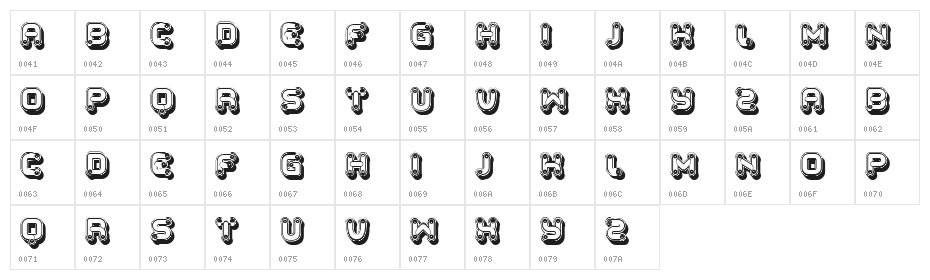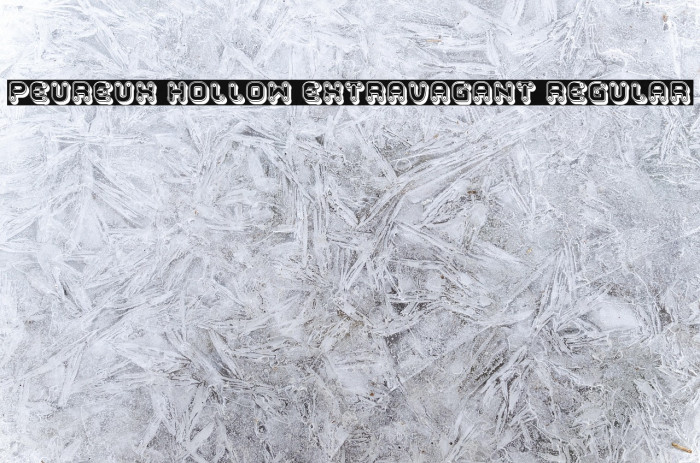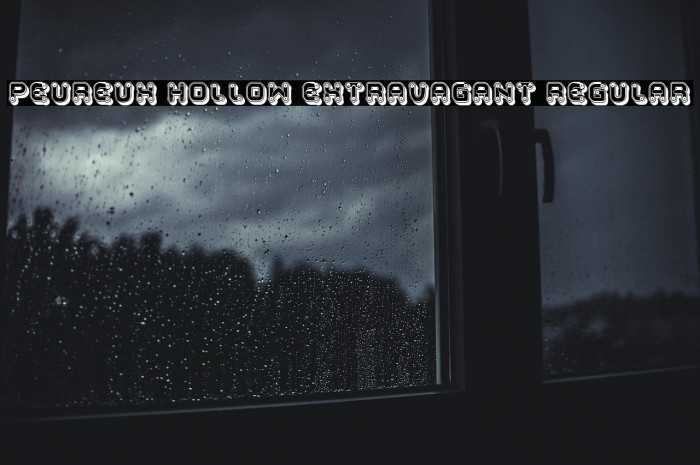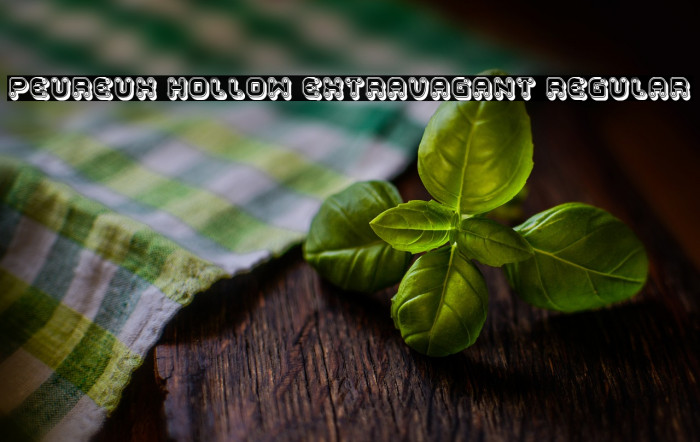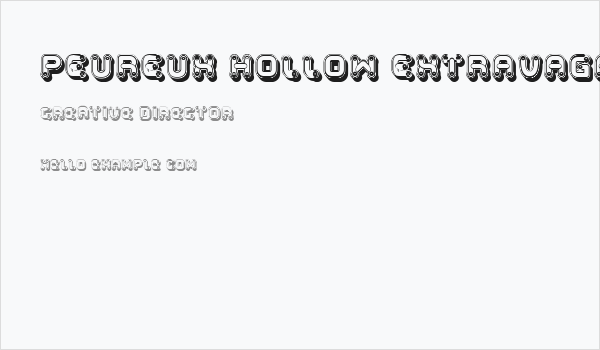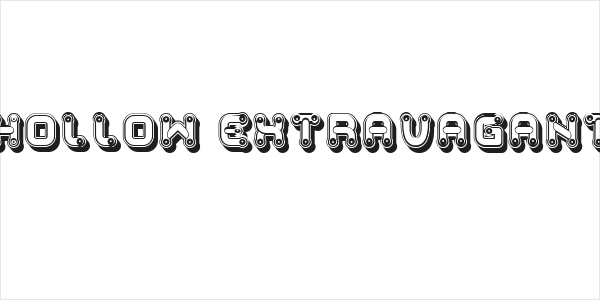
Peureux Hollow Extravagant Regular Font
Peureux Hollow Extravagant Regular Description
This font features a bold, hollow design with an extravagant and decorative style. The characters are outlined with multiple layers, creating a three-dimensional effect that adds depth and complexity. The font's intricate detailing and unique shapes make it stand out, with each letter appearing as a piece of art. The rounded edges and smooth curves contribute to its playful and whimsical appearance, while the consistent thickness of the strokes maintains readability. This font is perfect for projects that require a touch of creativity and flair, making it ideal for eye-catching headlines and artistic designs.
| Use Case | Headlines, Logos, Artistic Designs |
| Proposed Projects | Ideal for creative projects such as posters, logos, and headlines that require a bold and artistic touch. |